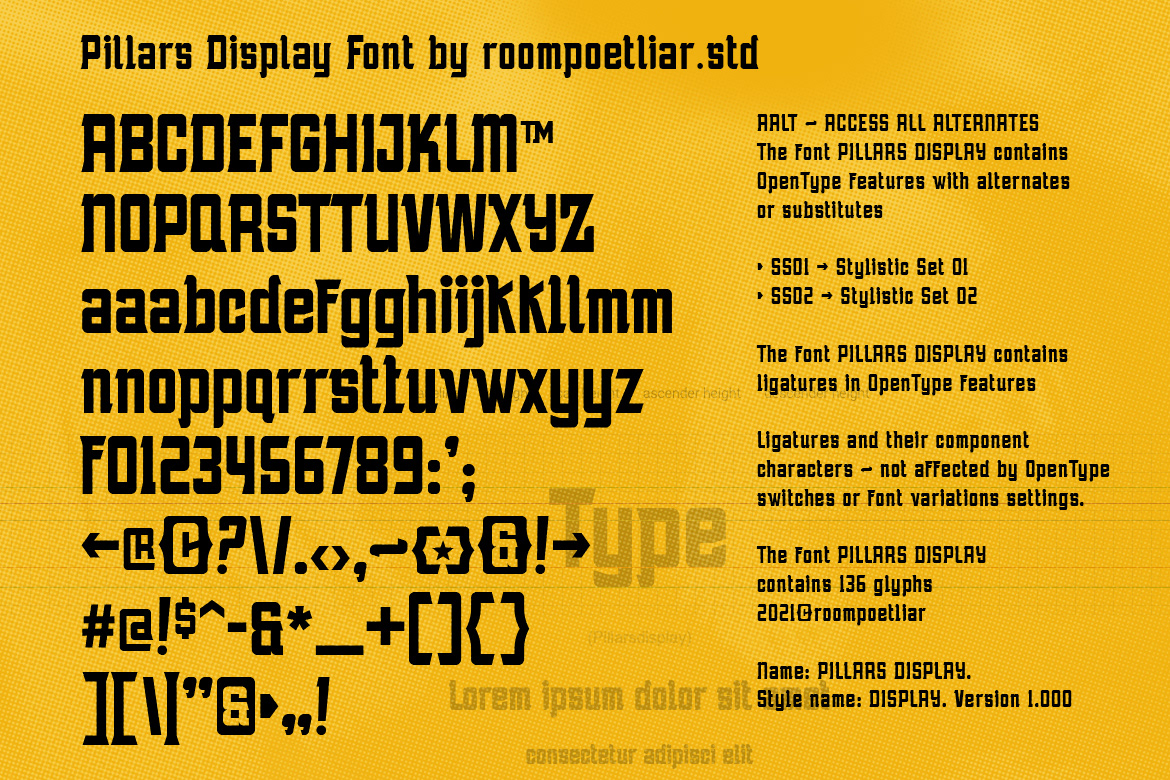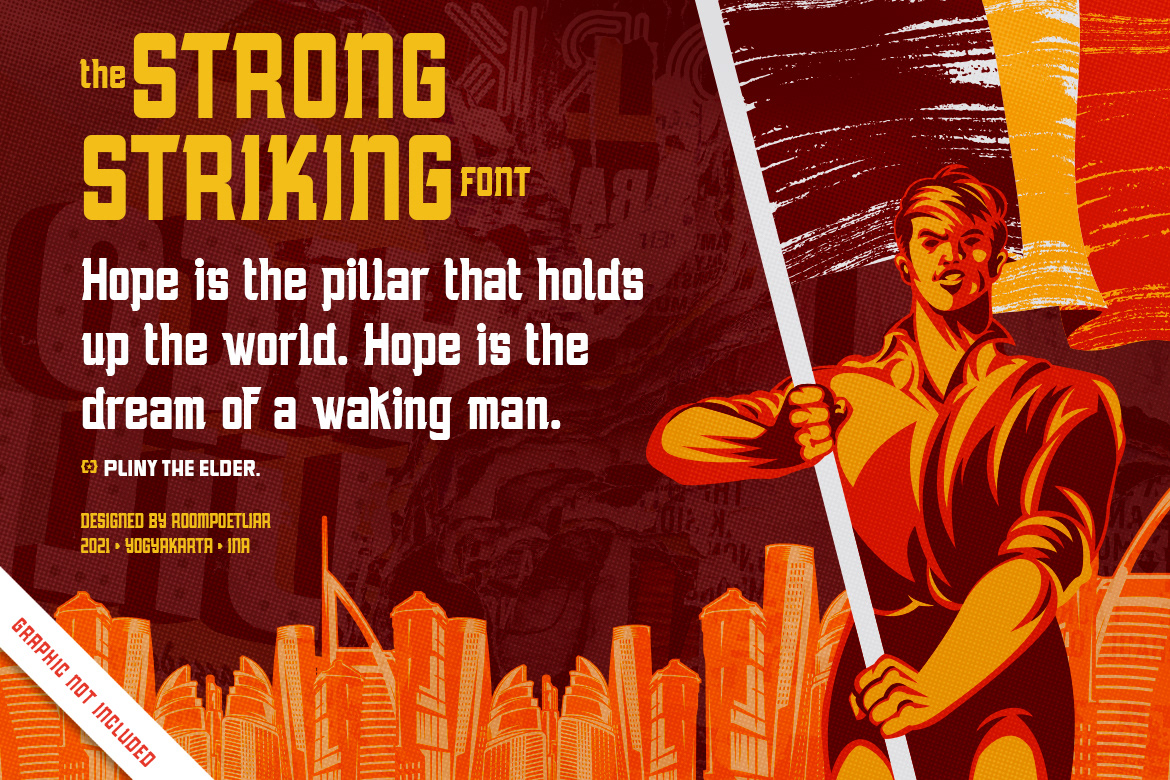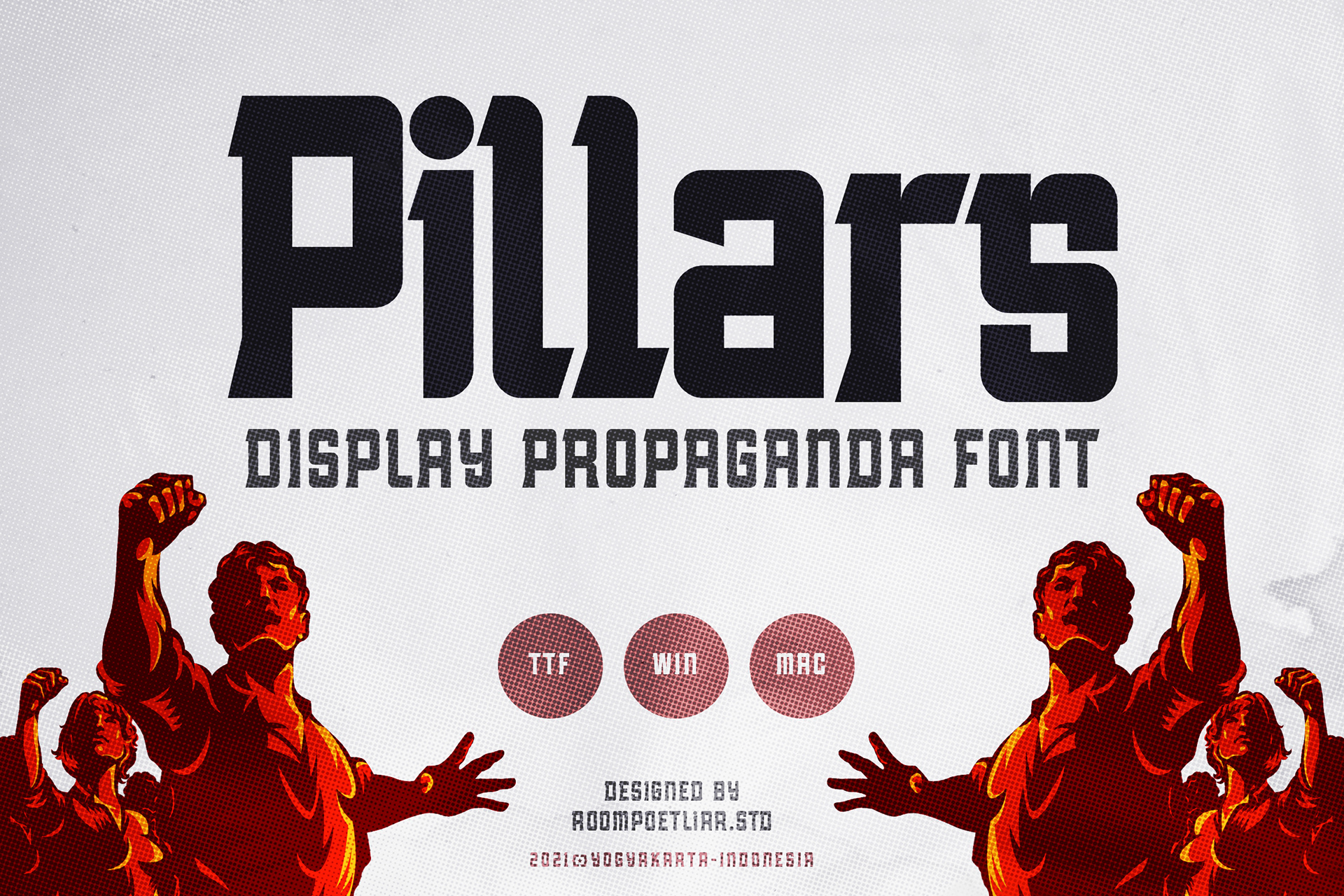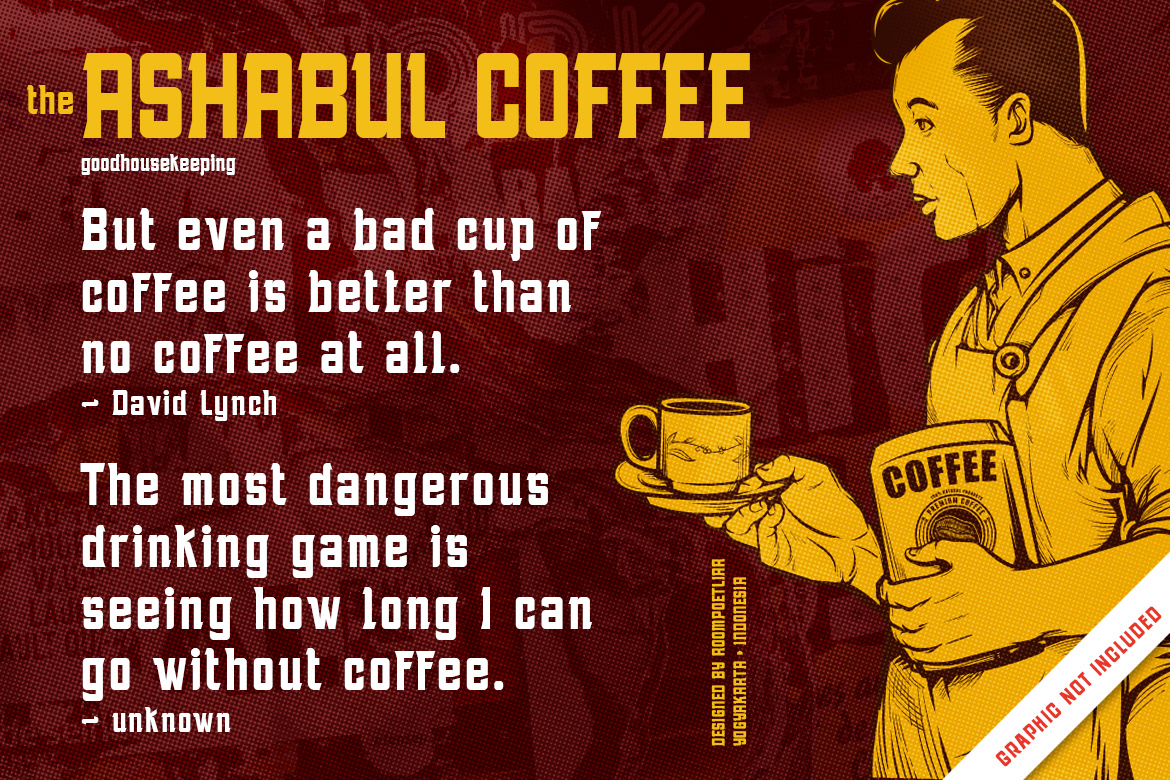
Pillars Font Display. Strong-striking font with boxy and sharp feeling. Suits best for poster designs, headlines, typography projects (restaurant, construction, resistance, solidarity, movement, revolution), Religion event, E-Sport logos, sports jersey text, etc.